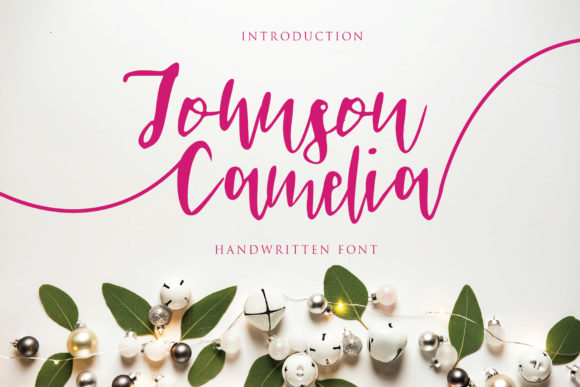
Johnson Camelia Font
About Johnson Camelia Font
Johnson Camelia is an exquisite handwritten font, masterfully designed to become a true favorite. It maintains its classy calligraphic influences while feeling contemporary and fresh. Fall in love with it and bring your projects to the highest levels!